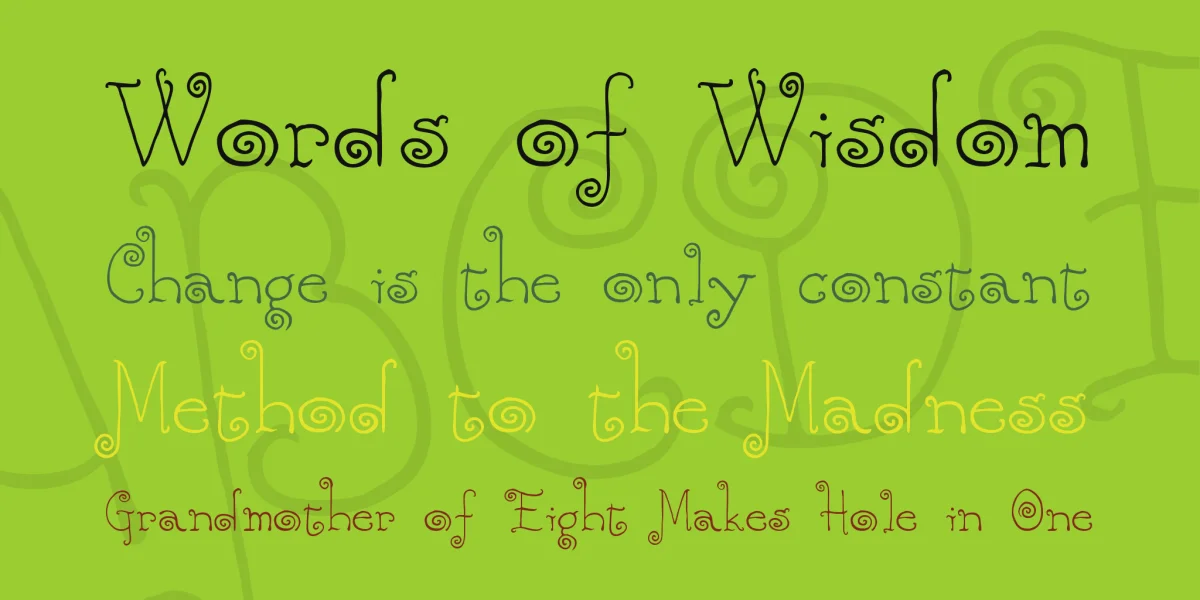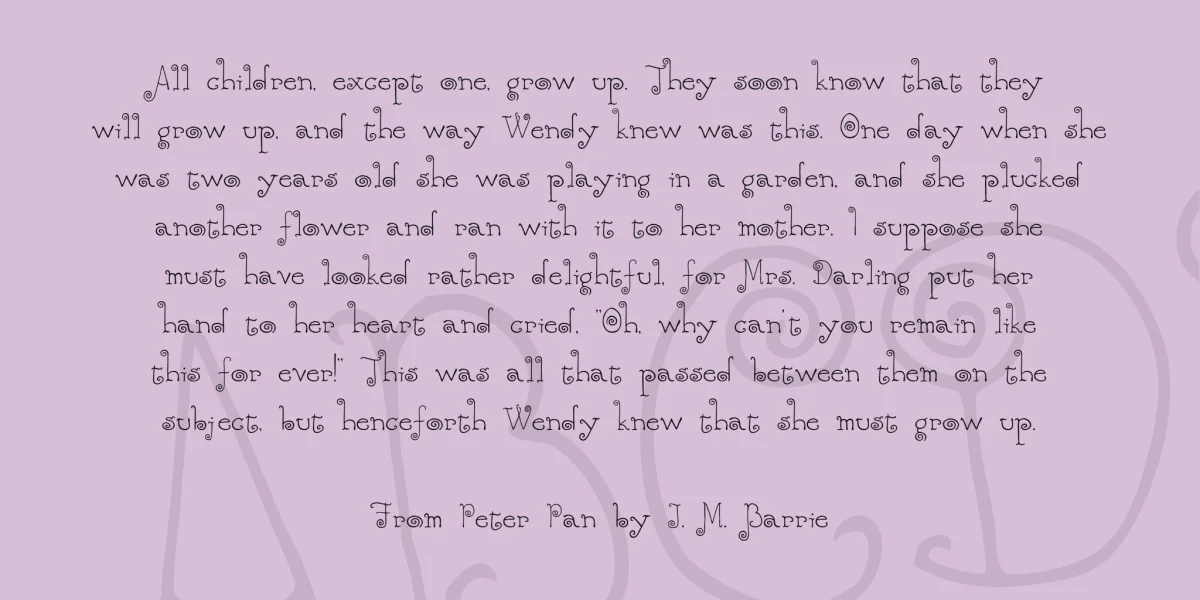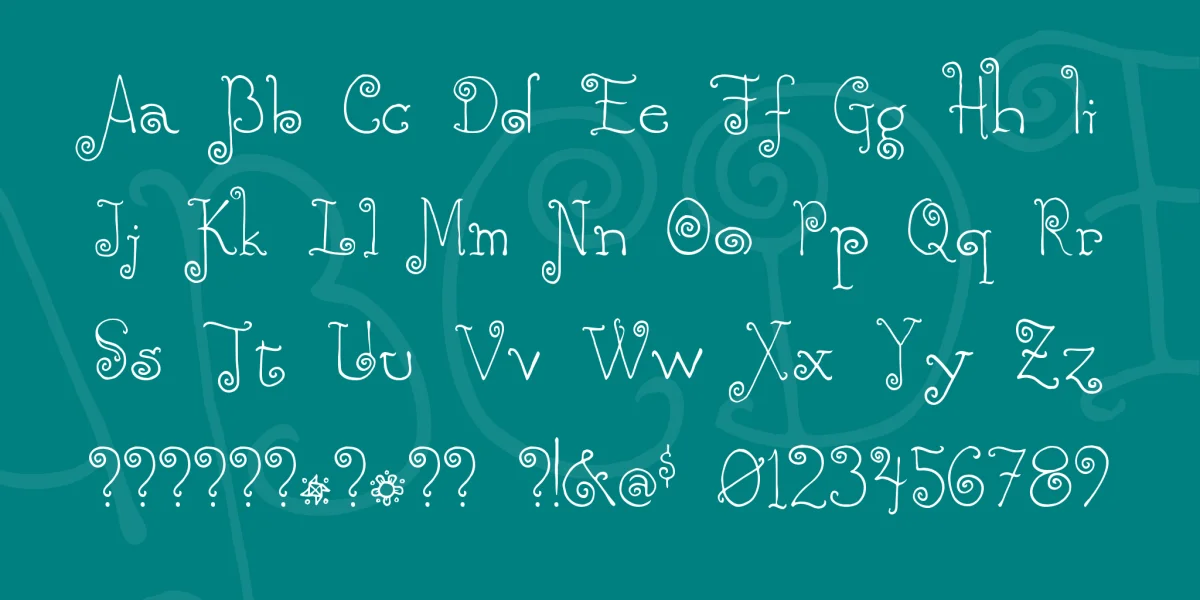
Complete font, with oodles of extras. Uppers, lowers, numerics, extended characters. I stuck in 26 dingbats and filled up most of the un-designed ASCIIs with 'em for good measure! This is sort of a "sequel" to my Christmas on Crack font which has done really well here at 1001fonts. Thanks for your continued support; be sure to read the "readme" textfile when downloading Parallax fonts! :o)